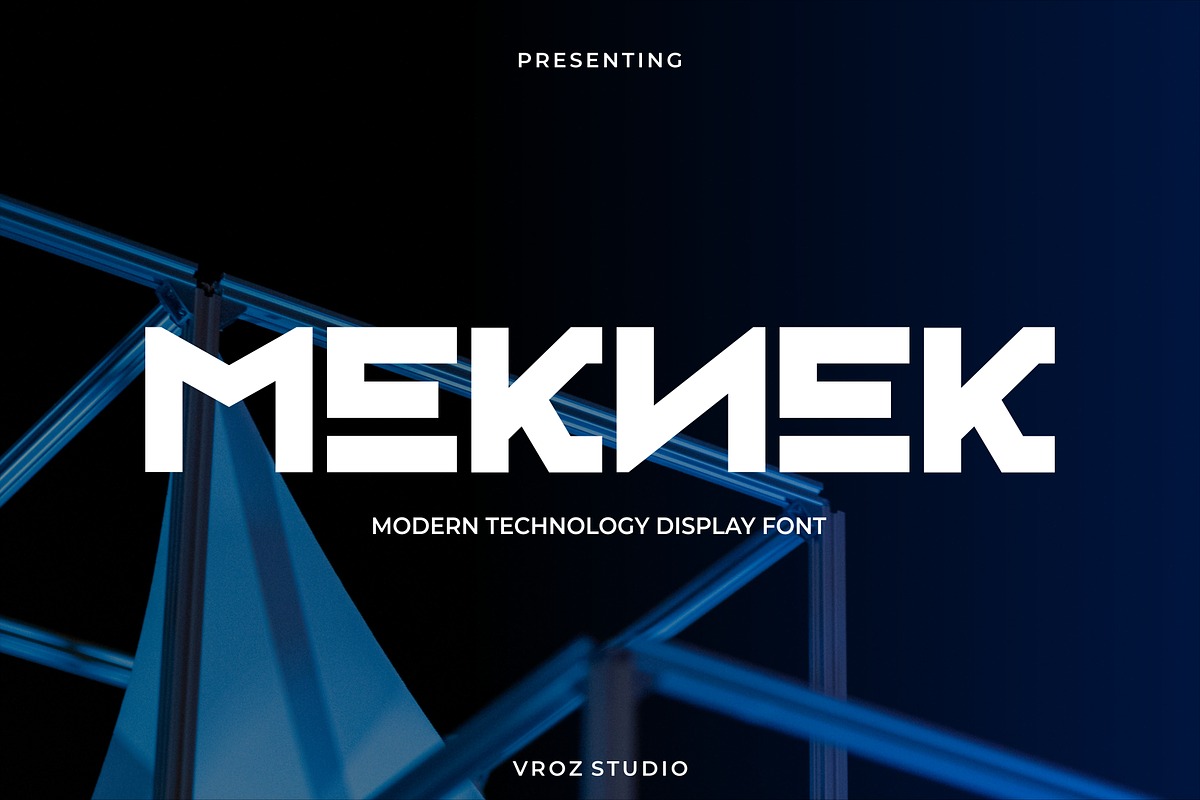
Meknek Font
Meknek Font is a flexible and reliable font created to fit multiple design needs, from branding and packaging to social media and editorial layouts.MEKNEK is a modern technology display font designed to express power, precision, and futuristic character. Built with bold geometric forms and a strong mechanical structure, this typeface delivers a sharp and confident visual impact inspired by digital systems and industrial design.
Created specifically for headlines and visual statements, MEKNEK is ideal for technology branding, automotive projects, esports logos, futuristic posters, UI displays, and sci-fi themed designs. Its striking letterforms ensure high visibility and a modern edge, making every title stand out with authority.
With its clean construction and tech-driven aesthetic, MEKNEK brings a future-ready identity to both digital and print media—perfect for creators and brands that want to look innovative, bold, and forward-thinking.